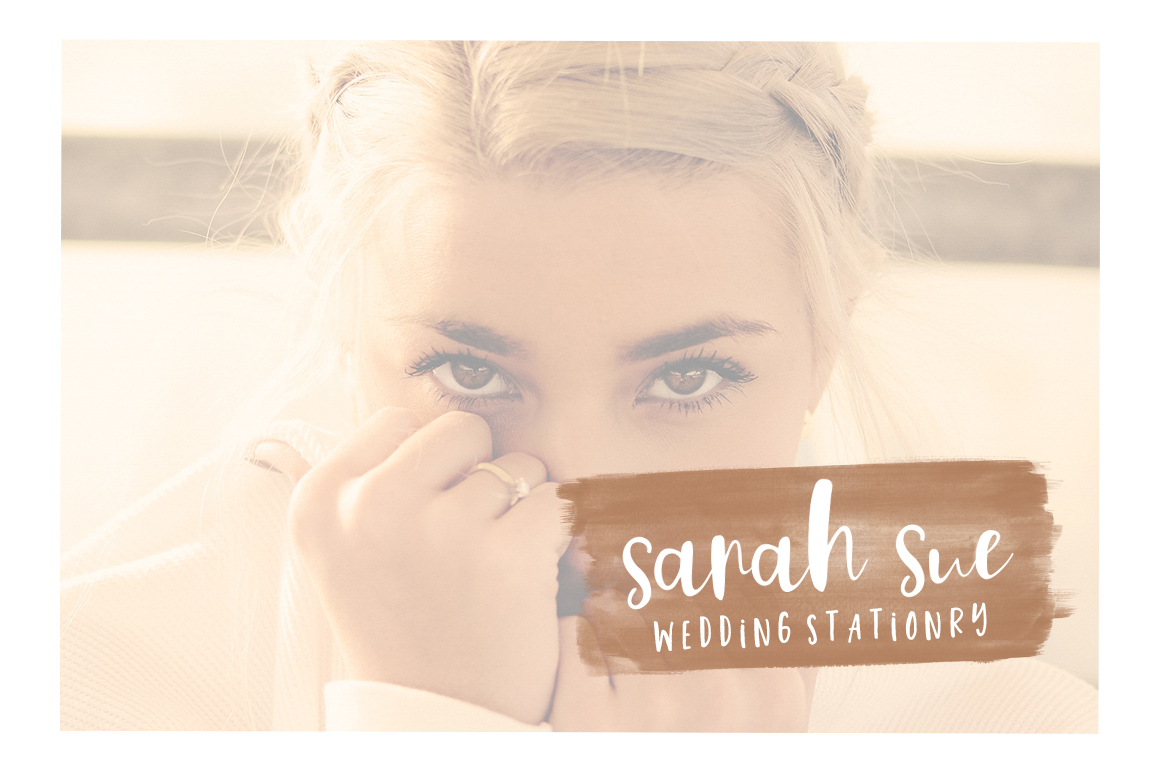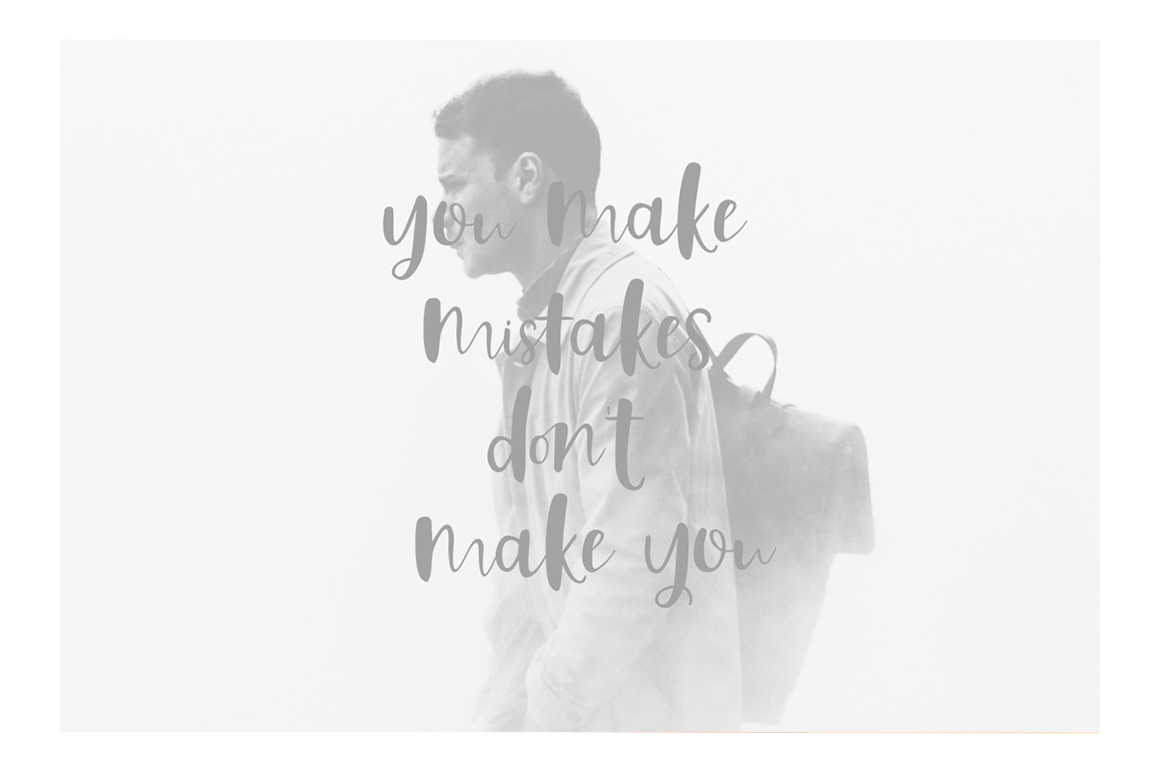
Astilone Font Duo Font
db-ku.com - Script & Handwritten -- The Astilone Font Duo is a hand brushed font, created with a brush and ink. It features a bold & irregular baseline.